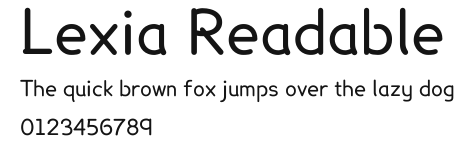
• Font Name: Lexia Readable
• Copyright: Lexia Readable (version 4.1) by Keith Bates • © K-Type 2004, 2013 • www.k-type.com • keith@k-type.com • The Lexia Readable family is designed for maximum legibility, a grown-up's Comic Sans that's clear and accessible.
• Designer: Keith Bates
About Lexia Readable.ttf
Lexia Readable.ttf is a modern, elegant sans-serif font designed for ultimate readability and visual harmony. Perfect for branding, headlines, web design, and print materials.